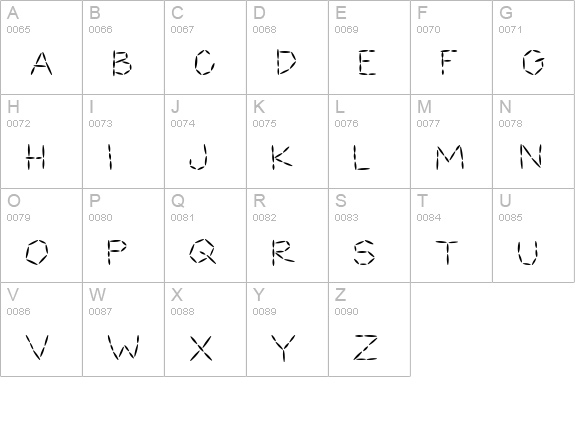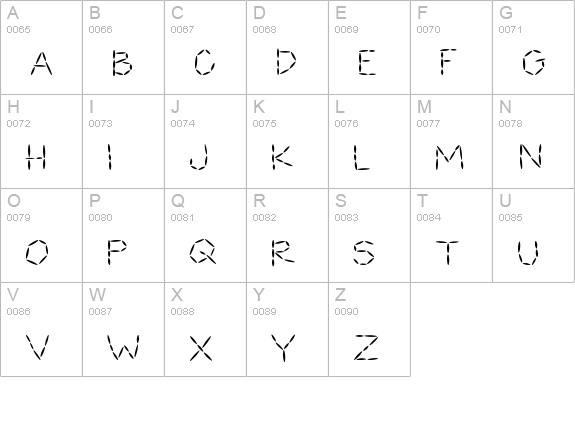
CK Quick Stitch Font Details
Introducing CK Quick Stitch font, a charming and versatile typeface that combines the rustic appeal of hand-stitched embroidery with a modern twist. Perfect for adding a touch of whimsy and personality to your projects, this font features unique stitching details that give it a handmade feel. The carefully crafted letterforms are both playful and elegant, making CK Quick Stitch ideal for a wide range of design applications. Best of all, CK Quick Stitch font is available for free download at FontsMarket.com. Whether you're working on a DIY craft project, creating branding materials, or designing invitations, this font will add a special touch to your work. Don't miss out on the opportunity to enhance your designs with the charming CK Quick Stitch font today!